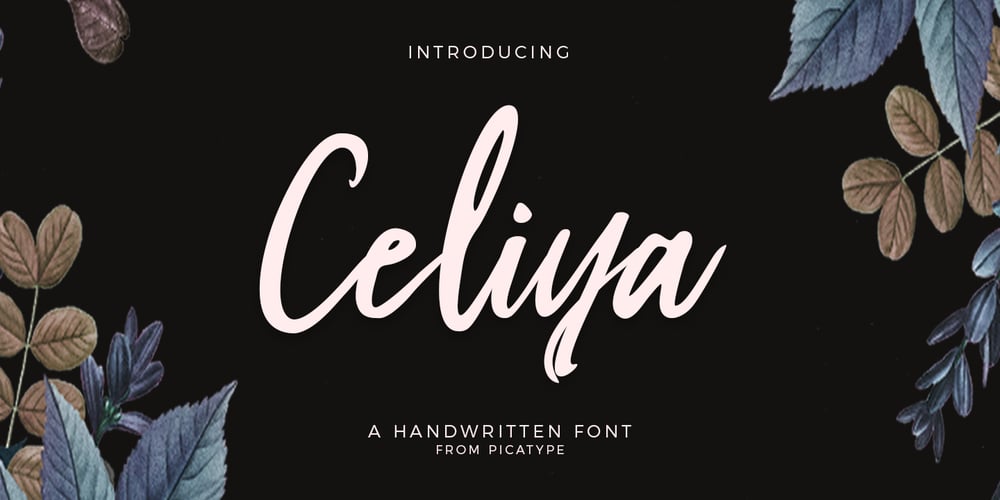
Celiya Script
Celiya Script font
Celiya Script Font Family was designed by Akmal Yusar and published by Picatype. Celiya Script contains 1 styles and family package options. Celiya Script is a modern script with handwritten, decorative characters, and dancing basics! It’s very suitable for use such as blog headings, branding, t-shirts, weddings, social media, product design, stationery, advertisements, clothing, book covers, business cards, greeting cards, branding, merchandise, invitations and handmade quotes and more. Celiya Script features alternate OpenType features, binders and international support for most Western languages. To activate the OpenType Stylistic alternative, you need a program that supports OpenType features such as Adobe Illustrator CS, Adobe Indesign & CorelDraw X6-X7, Microsoft Word 2010 or newer versions. Celiya Script is coded with Unicode PUA, which allows full access to all additional characters without having special design software. Mac users can use the Font Book, and Windows users can use the Character Map to view and copy one of the additional characters to paste into your favorite text editor / application. If you have questions, feel free to contact me via email: picatypestudio@gmail.com Thank you!